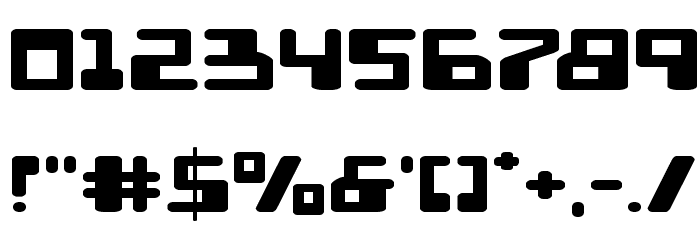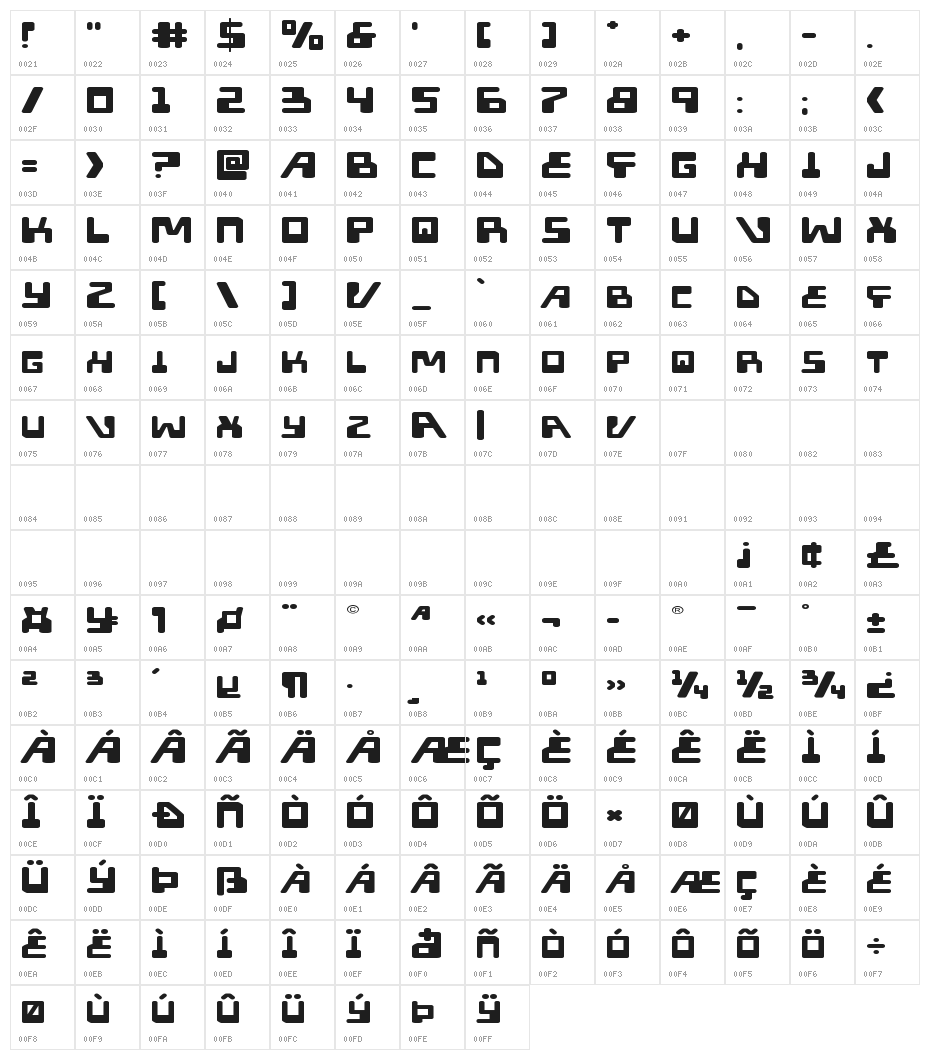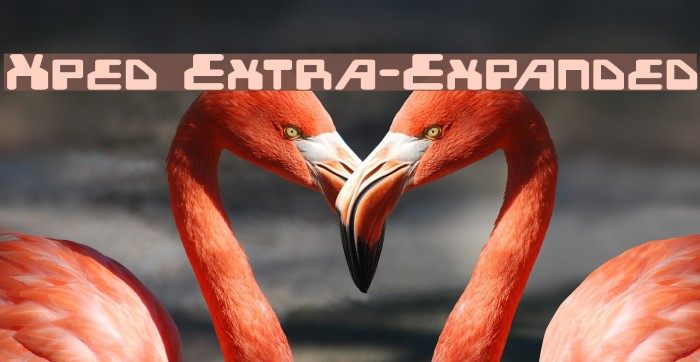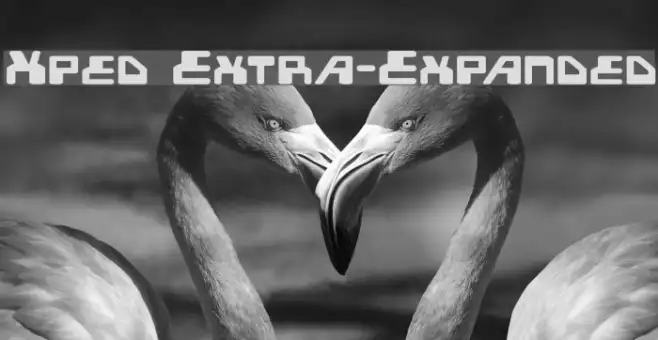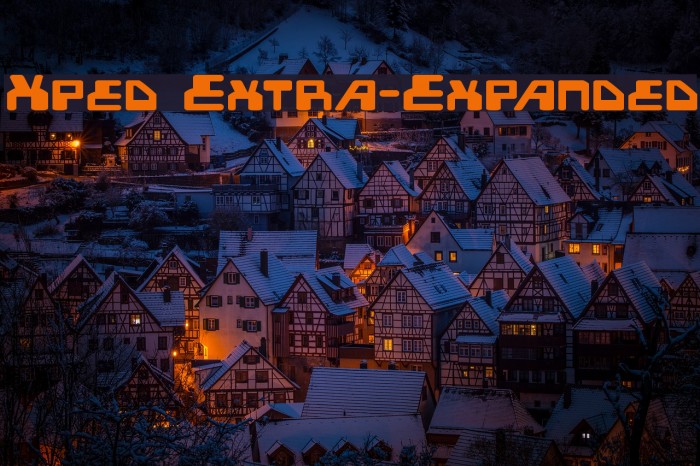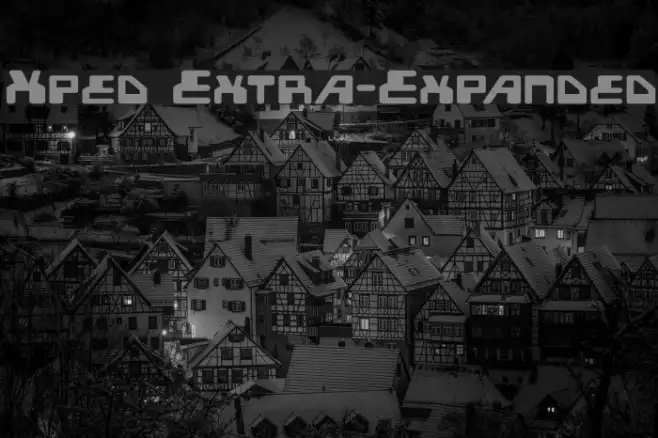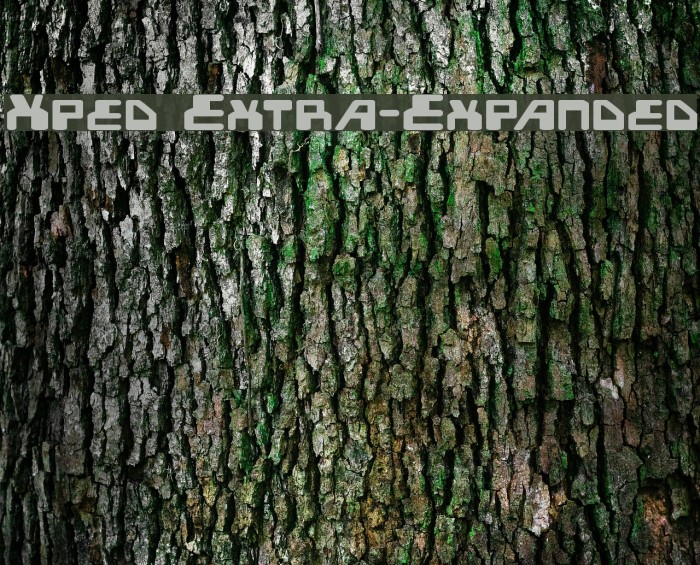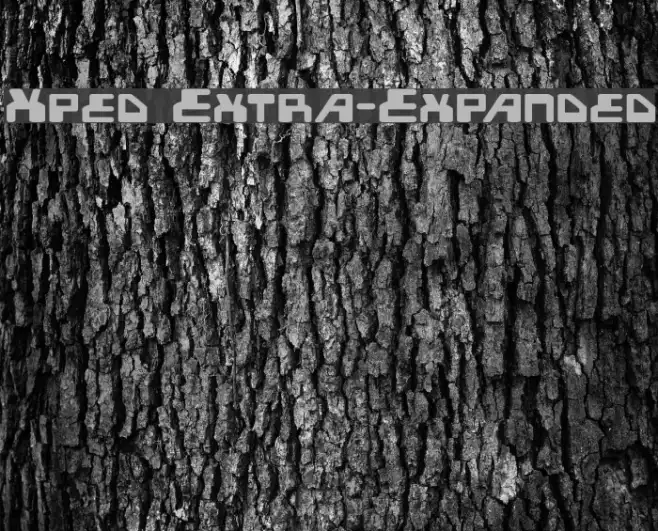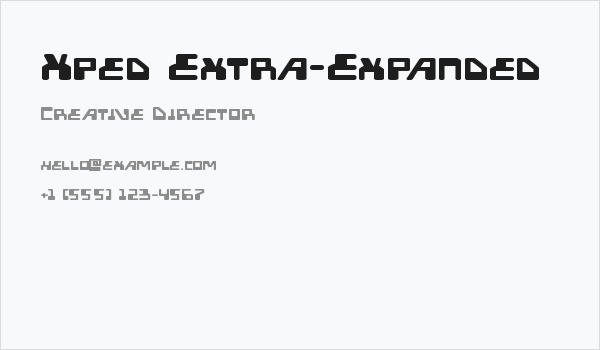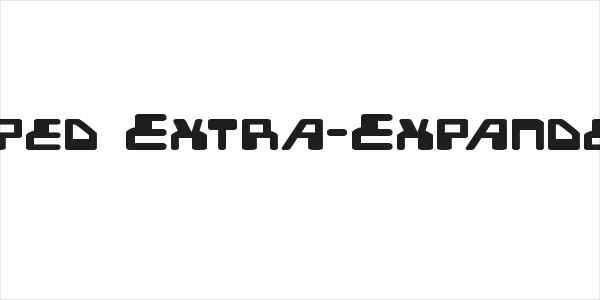
Xped Extra-Expanded Font
Xped Extra-Expanded Description
This font features a bold and geometric design with a futuristic flair. The characters are constructed with thick, uniform strokes that create a strong visual impact. The angular shapes and sharp edges give it a modern and edgy appearance, making it stand out in any design. The letters are evenly spaced, providing a balanced and cohesive look. The numbers and special characters maintain the same bold style, ensuring consistency across all elements. This font is ideal for projects that require a striking and contemporary aesthetic.
| Proposed Projects | Ideal for branding, posters, headlines, and digital media projects that require a bold and modern look. |